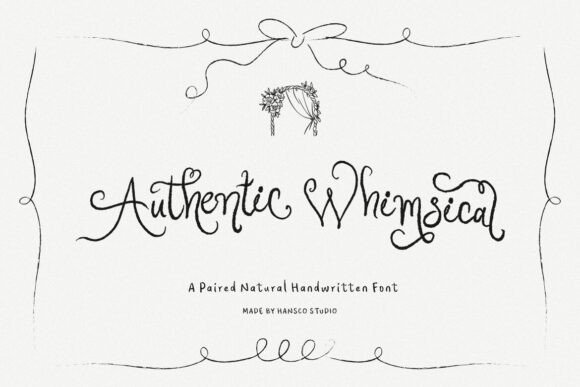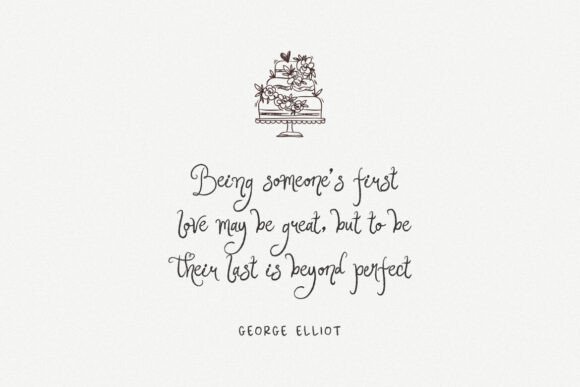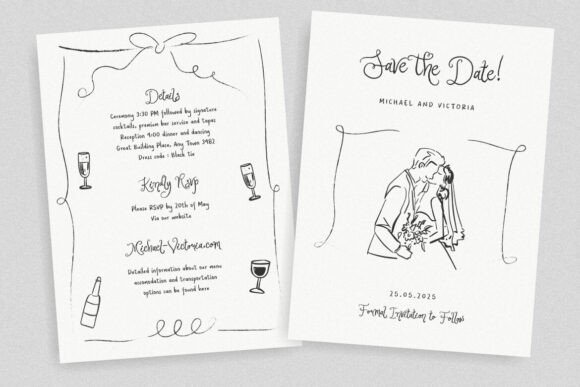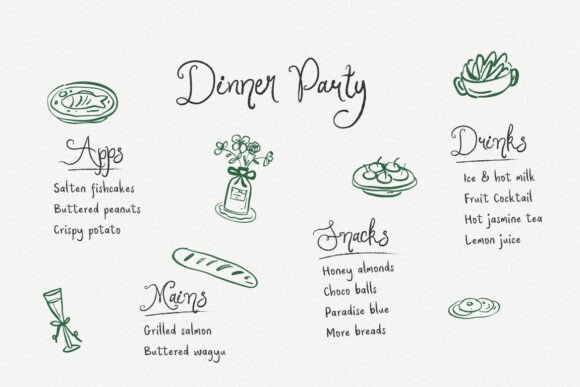
Authentic Whimsical Font
About the Authentic Whimsical Font
The wait is over! The incredible Authentic Whimsical Font is now available for your design toolkit. Authentic Whimsical is a gorgeous and elegant curly font with an incredibly magical feel. It features gorgeous and mysterious swashes and ligatures that make this script incredibly versatile. Whether you’re looking for fonts for Instagram, calligraphy scripts, or magic- or wizard-themed projects, authentic whimsical will turn any creative idea into a true piece of art. You will also get a combination font of hand-drawn sans type in this package.
Authentic Whimsical excels in display applications such as logos, short headlines, invitations, and social media graphics where its playful curves and swashes add a touch of magic. It’s ideal for projects needing a whimsical, slightly quirky feel, but less effective for body text or lengthy paragraphs due to its decorative nature and potential for reduced readability.
The accompanying sans-serif font provides a perfect counterpoint, allowing for clear, legible body copy alongside the whimsical display elements. For a more sophisticated pairing, consider a classic serif like Garamond or a clean geometric sans-serif like Futura. These pairings maintain visual interest while ensuring readability and preventing visual overload.
The overall personality is best described as playful yet elegant; whimsical but sophisticated. It is well-suited for brands aiming for a charming, slightly unconventional, and memorable aesthetic.
Authentic Whimsical Font Usage Examples
Authentic Whimsical Font Example